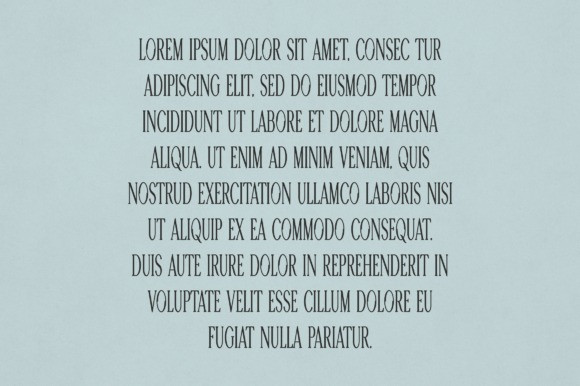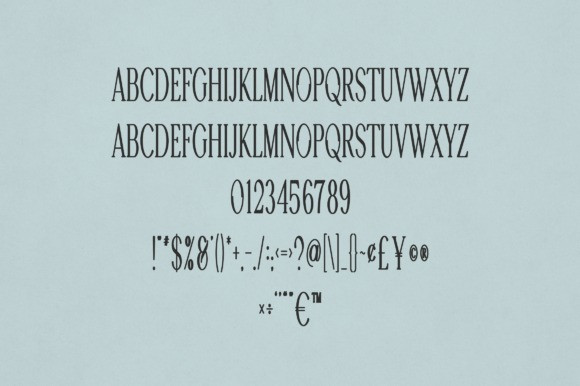
Hazel Font
Hazel Font is an elegant and versatile serif font that will make your typography truly unique! It will enchant every logo, branding, headline, or plain text!